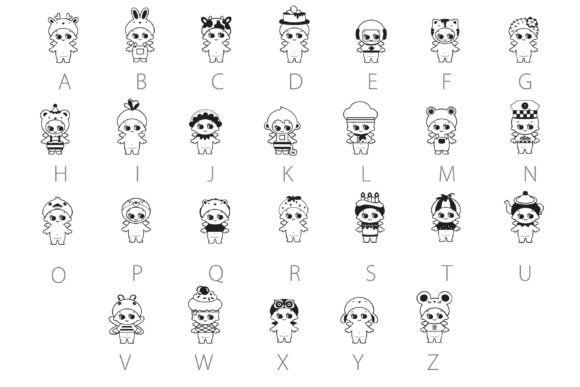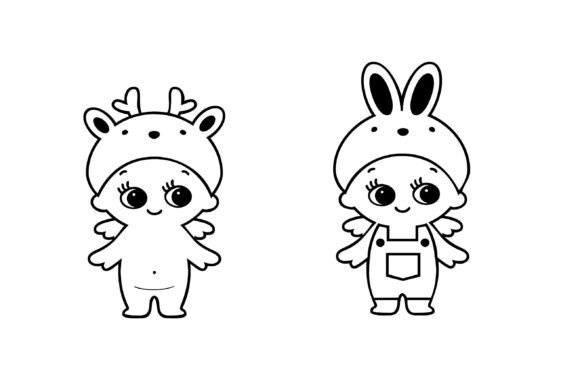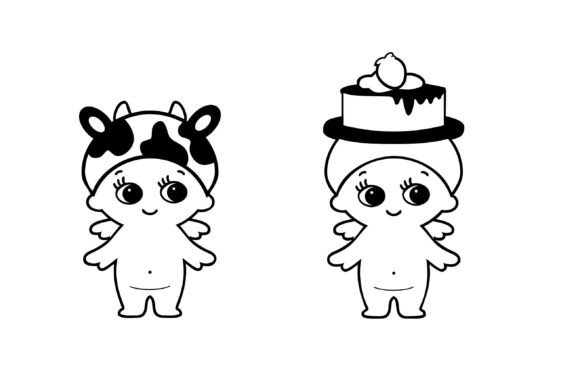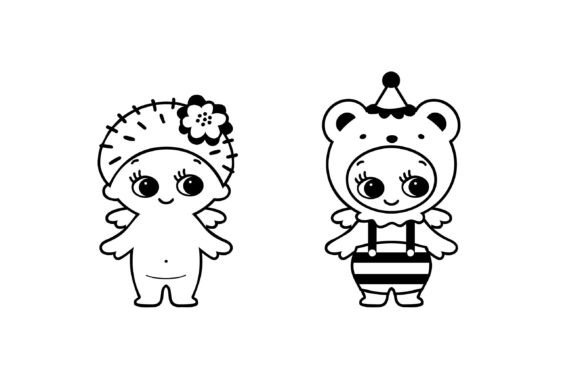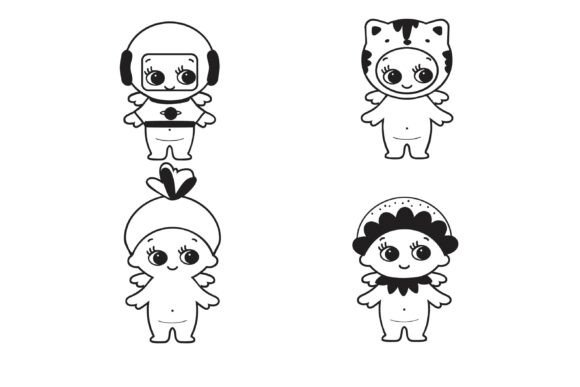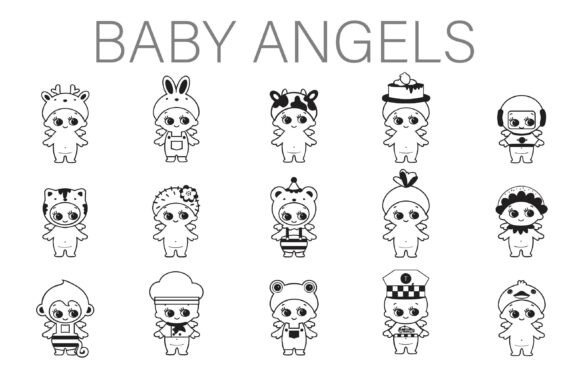
Baby Angels Dingbats Font: Add a Touch of Heavenly Charm to Your Creative Projects
Are you looking for a unique and adorable font to add a touch of heavenly charm to your creative projects? Look no further than the Baby Angels Dingbats Font! This delightful font features an adorable cast of winged cherubs, each showcasing a sweet and innocent expression. In this article, we’ll dive into the world of Baby Angels and explore how this charming font can elevate your designs, from personalized nursery decor to playful branding for children’s boutiques.
A Collection of Imaginative Characters
The Baby Angels Dingbats Font is a collection of precious characters, each dressed in a variety of imaginative costumes. From forest friends like deer and bunnies to professional picks like chefs, astronauts, and taxi drivers, this font has something for everyone. The characters are rendered in a clean, bold-line illustrative style, with sweet, wide-eyed expressions that are sure to capture the hearts of designers and crafters alike.
Perfect for Personalized Nursery Decor
One of the most popular uses for the Baby Angels Dingbats Font is in personalized nursery decor. The font’s adorable characters and sweet expressions make it an ideal choice for designing custom wall art, onesies, and other nursery essentials. Whether you’re creating a special gift for a new arrival or designing a nursery for your own little one, Baby Angels is sure to bring a touch of magic to the space.
Delightful Baby Shower Invitations
Baby Angels is also perfect for creating delightful baby shower invitations. The font’s playful and whimsical characters will set the tone for a joyful and celebratory event. You can use the font to design custom invitations, gift tags, and even party favors. Your guests are sure to be charmed by the adorable characters and sweet expressions.
Custom Apparel and Playful Branding
The Baby Angels Dingbats Font is not just limited to nursery decor and baby shower invitations. It’s also an excellent choice for designing custom apparel and playful branding for children’s boutiques. The font’s bold-line illustrative style and adorable characters make it perfect for creating eye-catching designs that will appeal to kids and parents alike. Whether you’re designing t-shirts, onesies, or stickers, Baby Angels is sure to add a touch of personality to your brand.
Exceptional Choice for Designers and Crafters
The Baby Angels Dingbats Font is an exceptional choice for designers and crafters who want to add a touch of handcrafted joy and innocent wonder to their projects. The font’s unique and imaginative characters will set your designs apart from the rest, and its versatility makes it perfect for a wide range of applications. Whether you’re designing for a client or working on a personal project, Baby Angels is sure to inspire your creativity.
Key Features of Baby Angels Dingbats Font
• Adorable cast of winged cherubs in a variety of imaginative costumes
• Clean, bold-line illustrative style with sweet, wide-eyed expressions
• Perfect for personalized nursery decor, baby shower invitations, custom apparel, and playful branding
• Exceptional choice for designers and crafters who want to add a touch of handcrafted joy and innocent wonder to their projects
• Versatile and easy to use
In conclusion, the Baby Angels Dingbats Font is a delightful addition to any designer’s or crafter’s toolkit. Its adorable characters, imaginative costumes, and sweet expressions make it perfect for a wide range of applications, from personalized nursery decor to playful branding for children’s boutiques. Whether you’re designing for a client or working on a personal project, Baby Angels is sure to bring a touch of heavenly charm and innocent wonder to your creations. So why not give it a try and see how this charming font can elevate your designs?